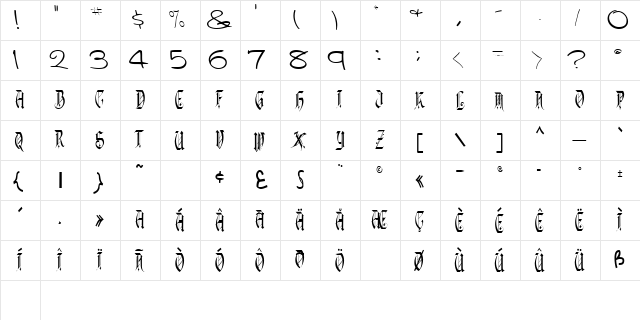
DropCapsText100 ttcon Regular
Design Context for DropCapsText100 ttcon Typeface
DropCapsText100 ttcon is a composed and adaptable typeface that performs quietly and consistently across a wide range of design contexts.